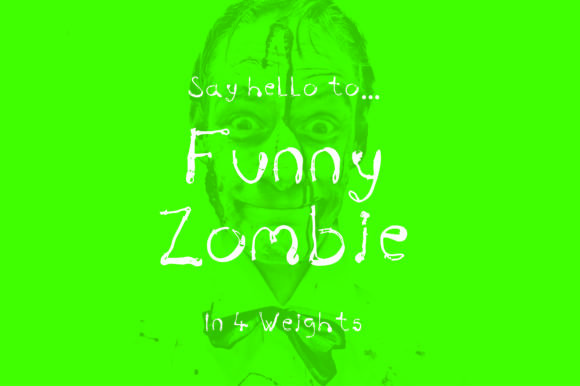
Unleashing Creativity with the Funny Zombie Font
Who hasn’t stared at a blank canvas, trying to come up with the perfect idea? You know that moment when your mind is a blank slate, and all you can think about is the pressure to create something amazing. Well, we’ve all been there. But what if you could break free from the pressure and let your creativity run wild? That’s exactly what the Funny Zombie Font can help you do.
This bold, rough, and weird handwritten font has a scary touch that’s sure to bring a smile to your face. Its unconventional design makes it perfect for adding a touch of humor and whimsy to your projects. Whether you’re a designer, artist, or writer, the Funny Zombie Font is a valuable tool that can help you stand out from the crowd and bring your unique vision to life.
- Unique Characteristics: Funny Zombie Font features a playful, handwritten style with irregular letterforms and expressive flourishes, perfect for adding a touch of whimsy to designs.
- Kerning and Ligatures: Funny Zombie Font includes advanced kerning and ligature features to ensure smooth, even spacing between letters and a more natural, handwriting-like feel.
Designer Review: Funny Zombie Font
The Funny Zombie Font is a font that’s sure to bring a smile to your face, with its quirky and playful design. ✨ Here are some of its standout features:
- Unique characters: The font features a range of zombie-themed characters, including skulls, bones, and other creepy-crawlies.
- Customizable: The font is highly customizable, with options to adjust the size, color, and style of the text.
- Fun and playful: The font is perfect for adding a touch of humor to your designs, making it ideal for social media posts, memes, and other lighthearted content.
However, there are some limitations to the font that should be noted:
- Not suitable for all audiences: The font’s zombie theme may not be suitable for all audiences, particularly those who are easily disturbed or offended.
- Limited versatility: While the font is fun and playful, it may not be the best choice for more serious or professional designs.
- ⚠️ Some characters may not display correctly in certain fonts or operating systems.
Overall, the Funny Zombie Font is a fun and playful font that’s perfect for adding a touch of humor to your designs. While it may not be suitable for all audiences or designs, it’s a great choice for social media posts, memes, and other lighthearted content.
For best results, use the Funny Zombie Font for humorous or playful designs, such as:
- Posters for horror movies or zombie-themed events.
- Graphics for social media or blog posts about zombies.
- Invitations for zombie-themed parties or costume contests.
What is the recommended font size for using the Funny Zombie Font?
The recommended font size for using the Funny Zombie Font is between 12pt and 24pt. This font size range provides optimal legibility and readability for most applications. However, you can experiment with different font sizes to achieve the desired visual effect for your project.